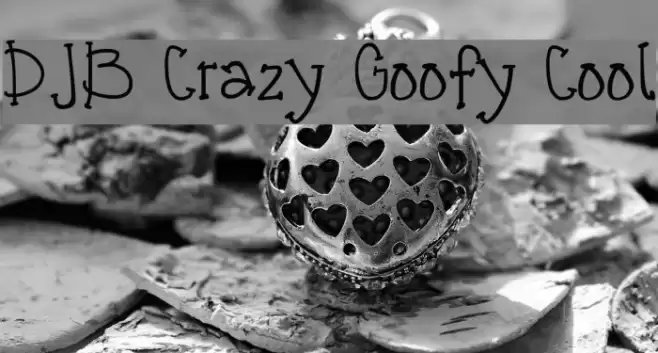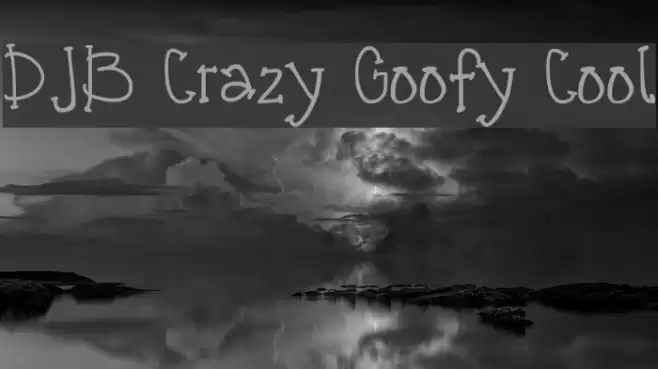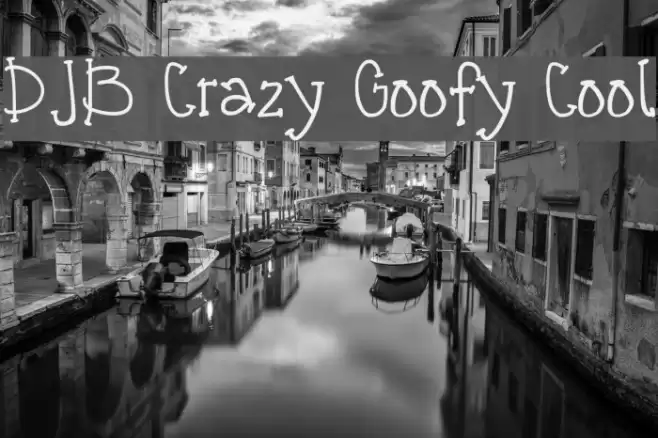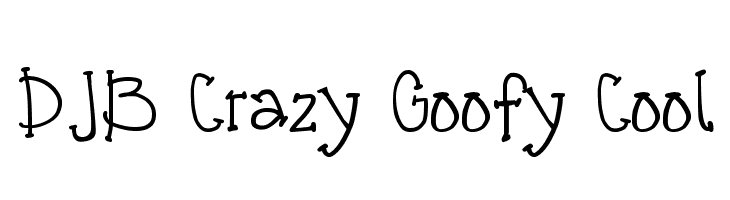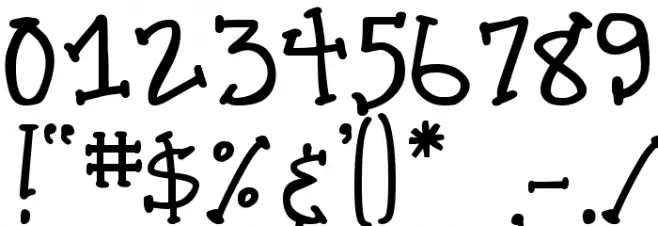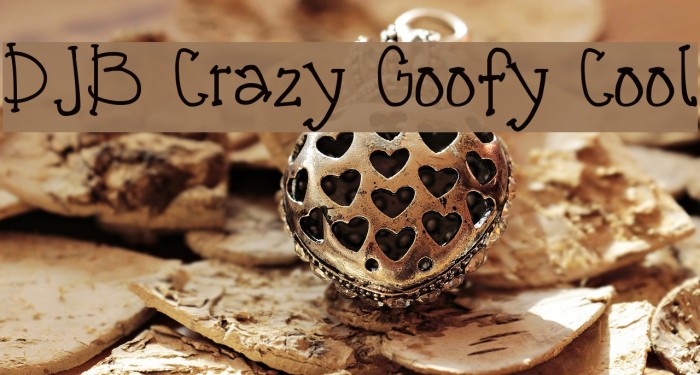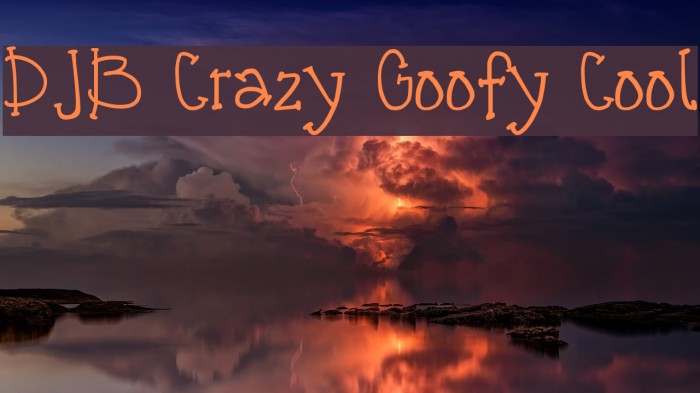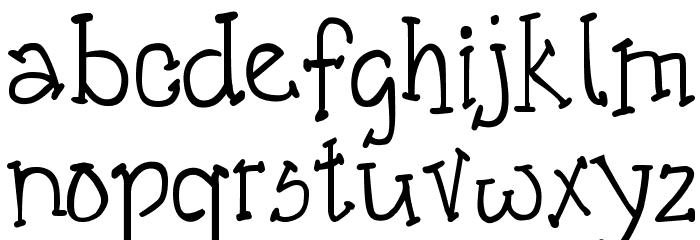
DJB Crazy Goofy Cool Font
DJB Crazy Goofy Cool Description
This playful and whimsical font features irregular, hand-drawn characters that convey a sense of fun and creativity. The uppercase and lowercase letters have a quirky, uneven baseline, adding to the font's charm. The numbers and special characters maintain this playful style, making it ideal for projects that require a lighthearted and informal touch. The strokes are moderately thick, giving the font a bold appearance without being overwhelming. Its unique style makes it stand out, perfect for capturing attention in creative designs.
A playful, hand-drawn font with quirky, irregular characters from Cartoon fonts.
- Proposed Projects: Ideal for children's books, playful branding, party invitations, and creative posters.
- Use Case: Headlines, Logos, Creative projects